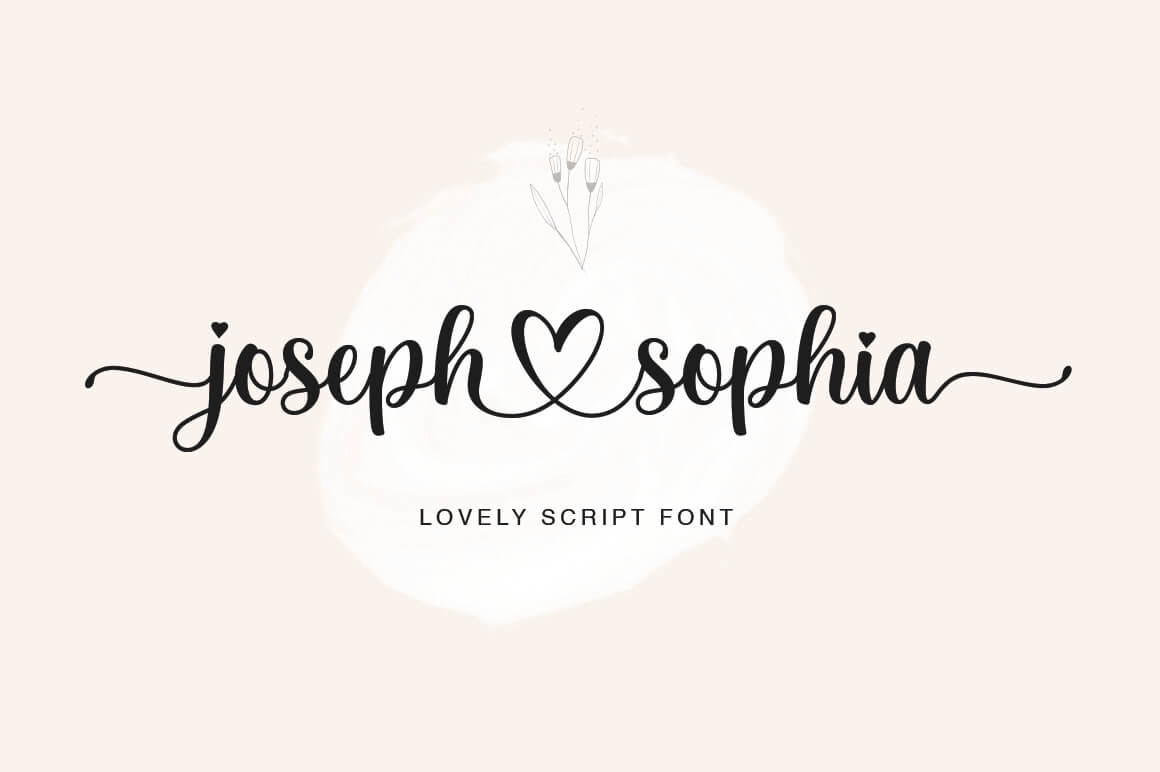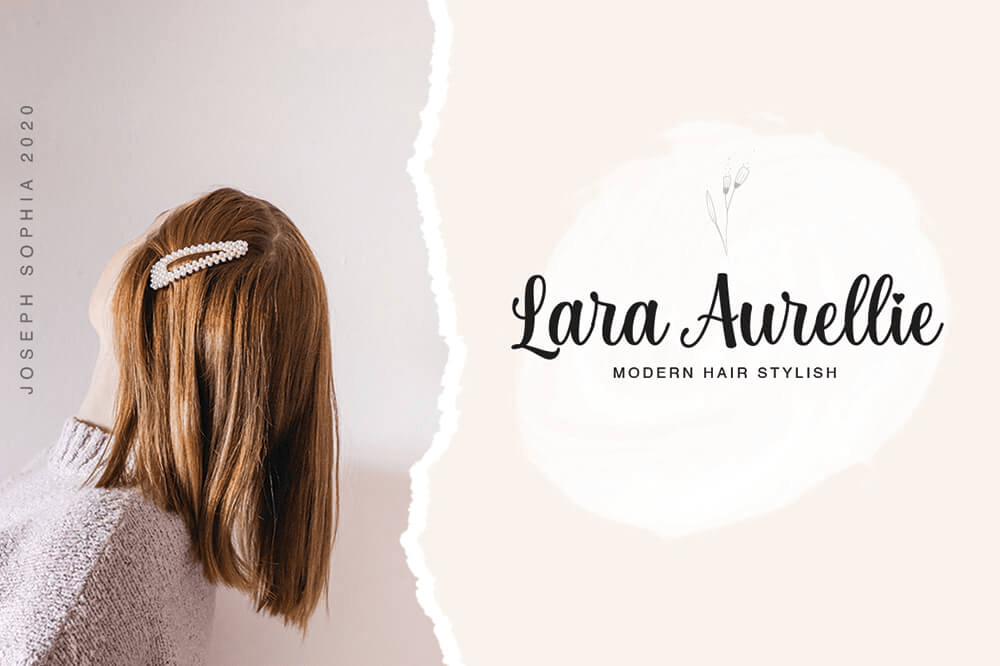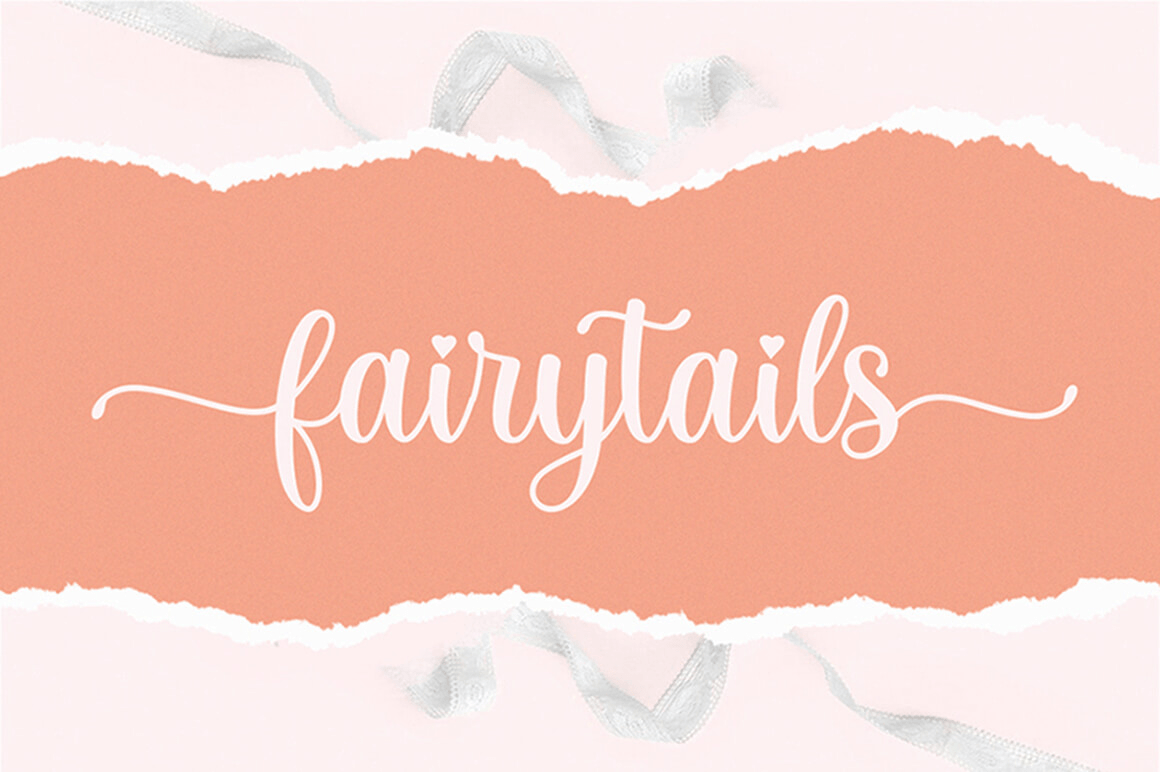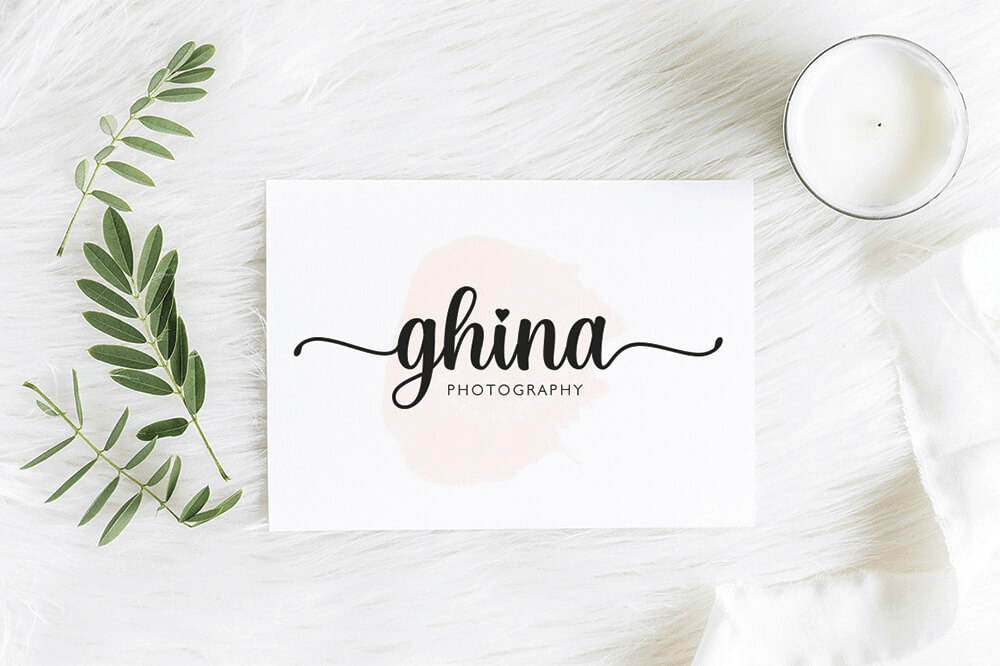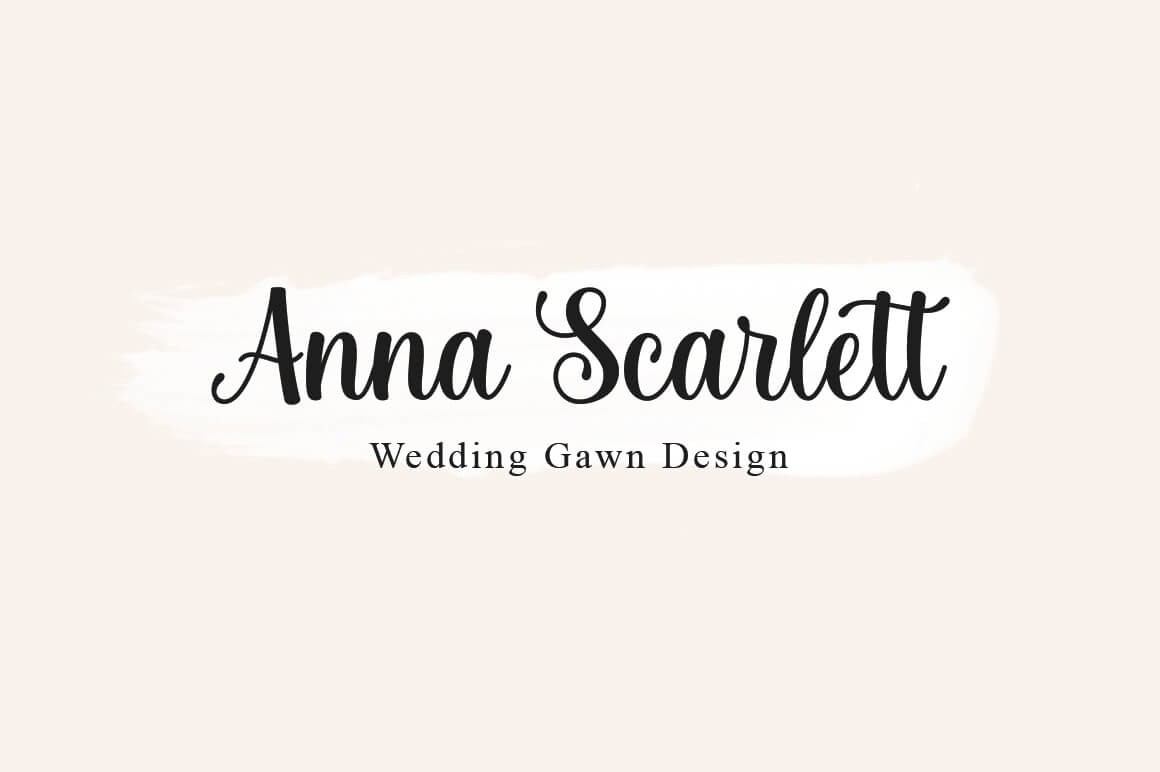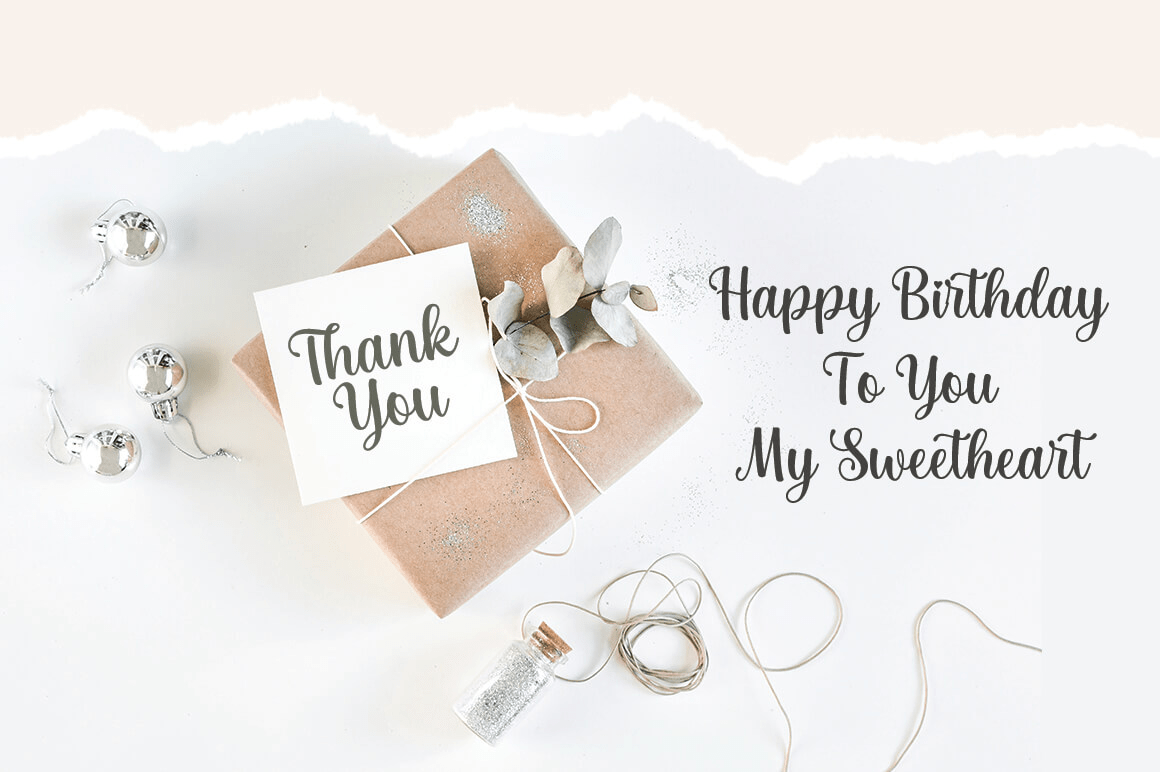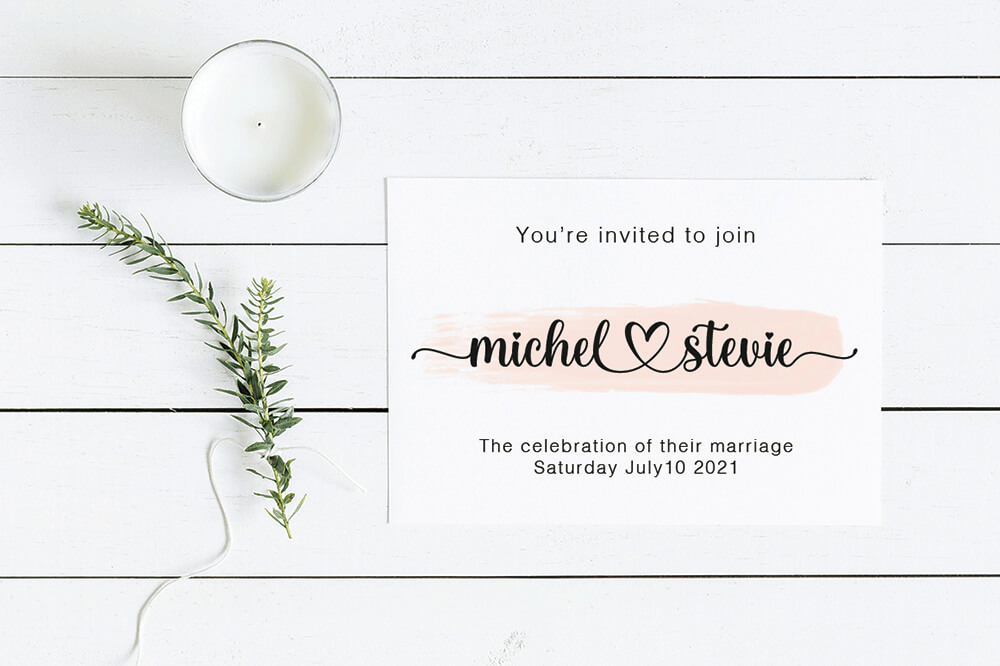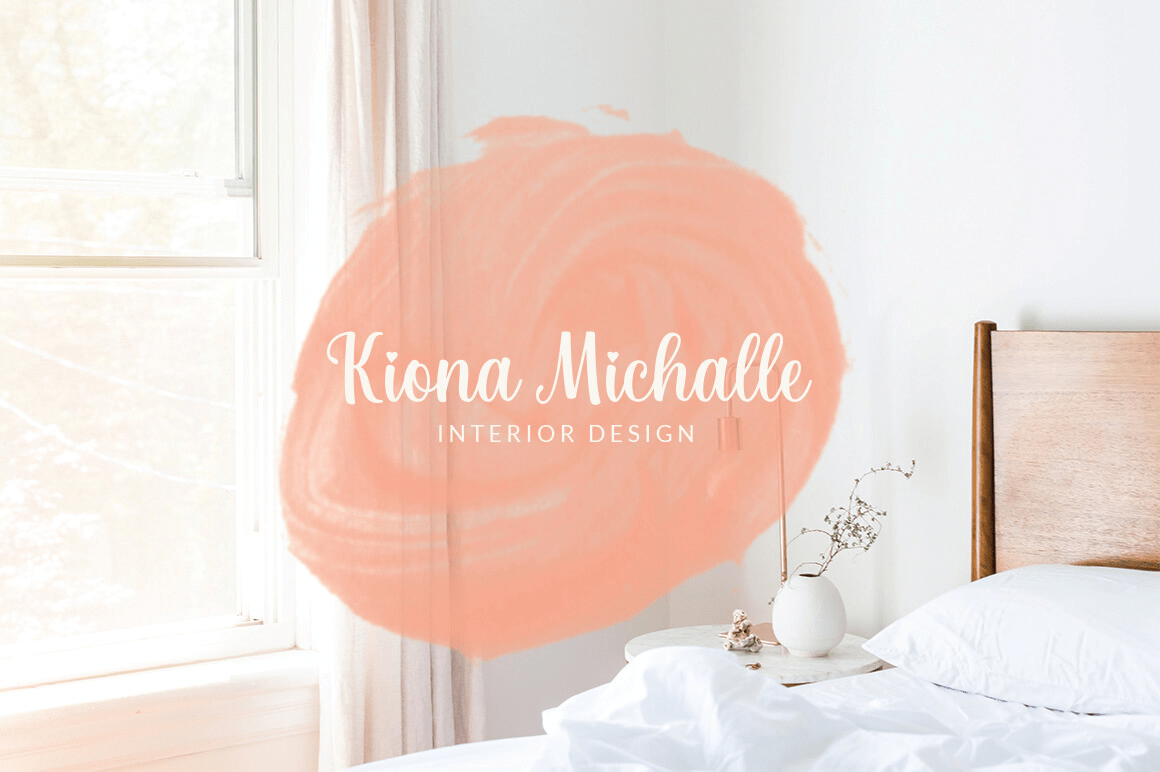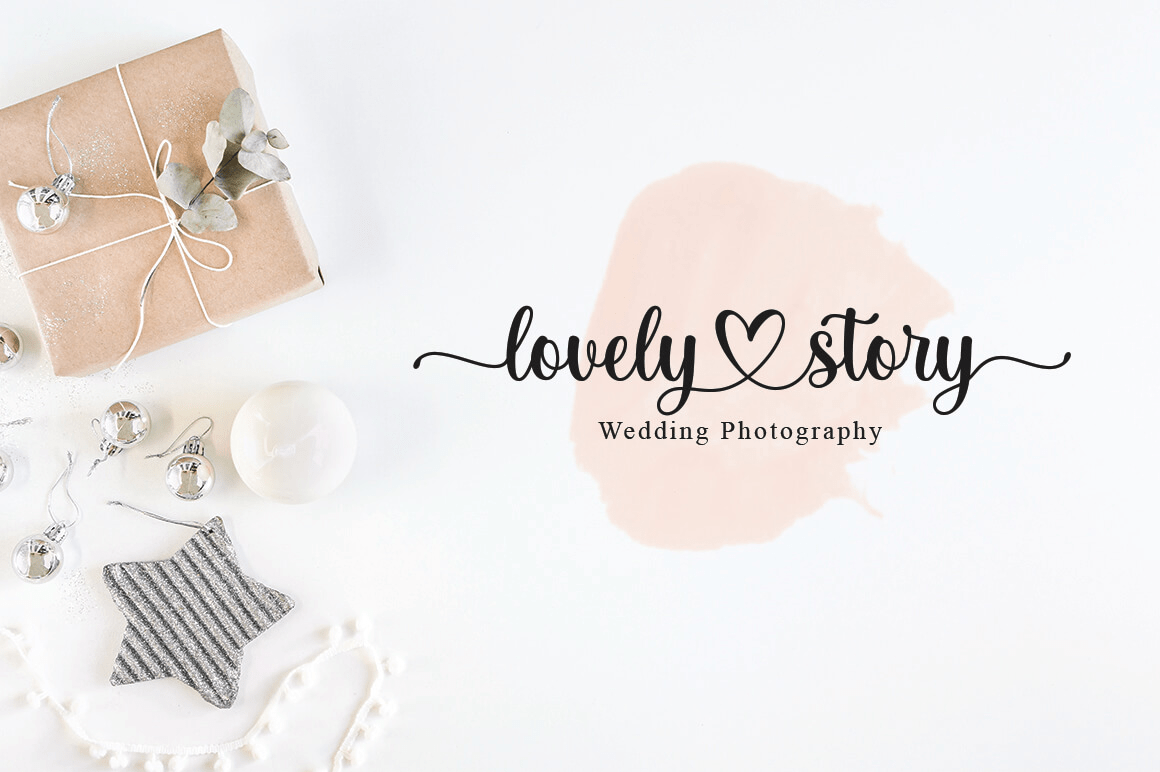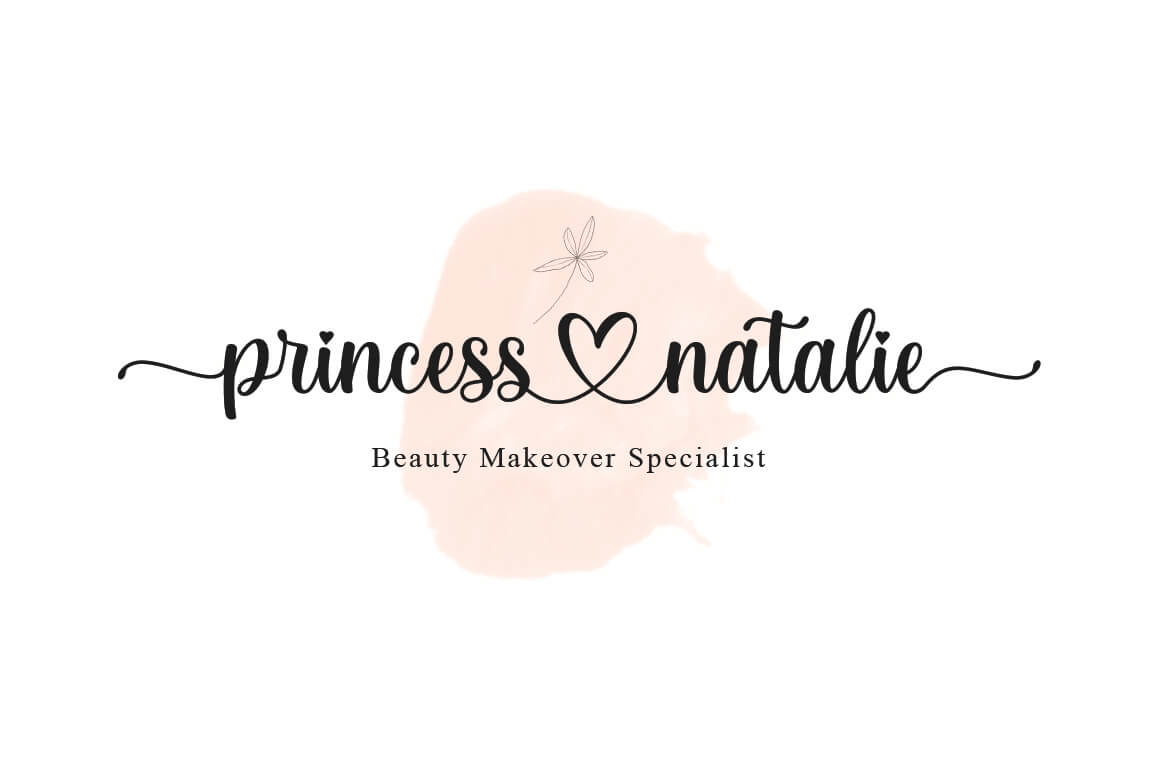
Joseph Sophia
Font Family by Fargun Studio
A new fresh and modern hand lettered font with decorative characters and a dancing baseline. So beautiful on invitation like handicraft, greeting cards, branding materials, business cards, quotes, posters, and more design concepts.